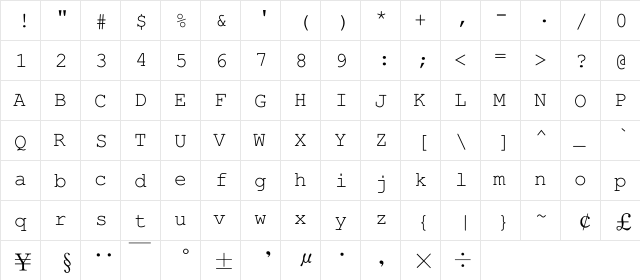
TSC FMing S TT Regular
Design Context for TSC FMing S TT Typeface
TSC FMing S TT takes a measured approach to typography — its balanced proportions and neutral character make it a reliable workhorse for both digital and print work.